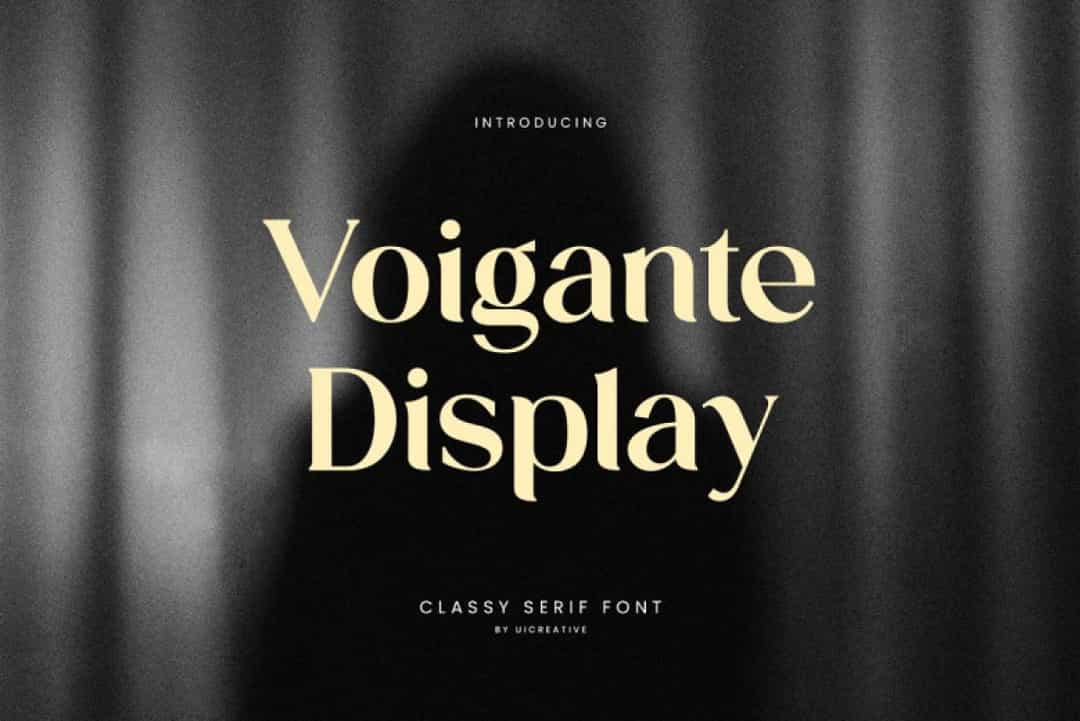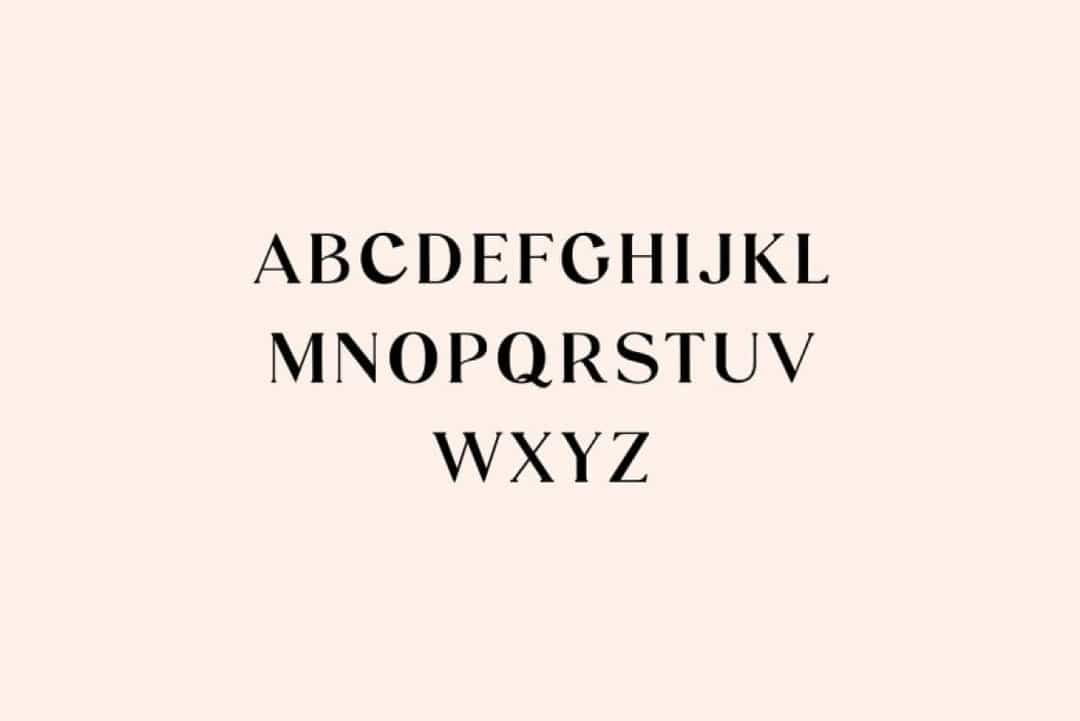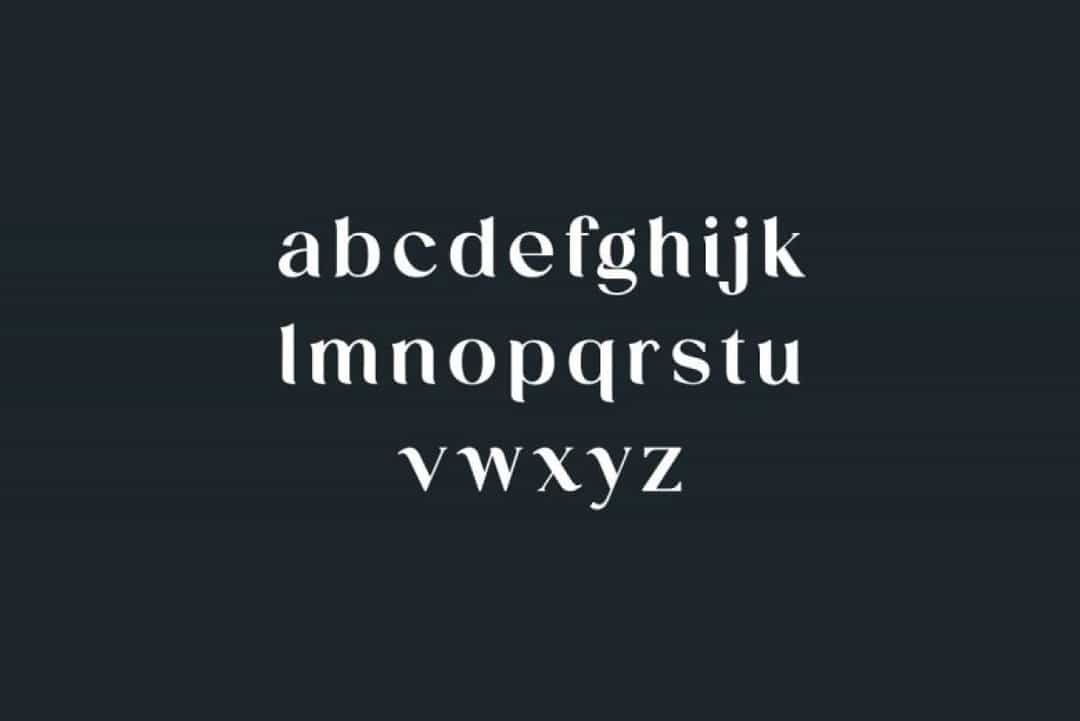
Voigante Display is an iconic modern serif typeface that exudes elegance, sophistication and contemporary. This font can be applied to many different designs such as logos, stationery, signature wedding invitations, typography quotes on book or magazine covers and headers on websites as well as branding clothing packaging designs that incorporate feminine and masculine qualities into branding campaigns. Additionally, editorial designs often use this font.